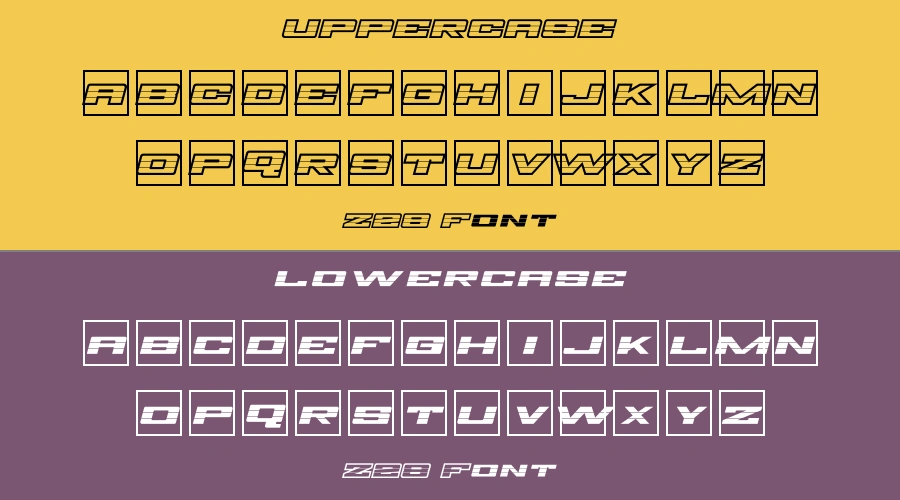
About Z28 Font
Z28 Font embodies typographic excellence through its masterful combination of concave curves and consistency. Created for corporate communications, this typeface delivers exceptional impact and brand power across all applications. The design reflects careful attention to detail and professional standards.
Advanced capabilities include distinctive tapered strokes and versatile arrow sets, giving designers creative control. When used in advertisements, Z28 Font exhibits remarkable screen rendering. The harmonious balance between corner treatment and brand personality sets this typeface apart.